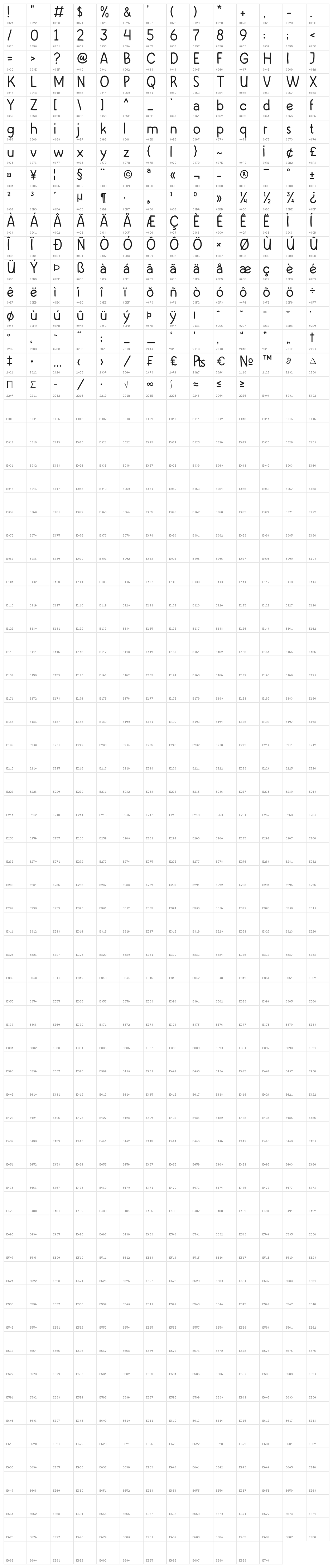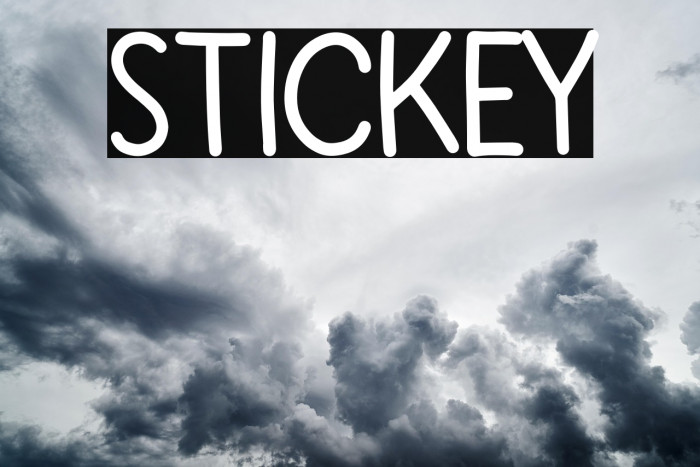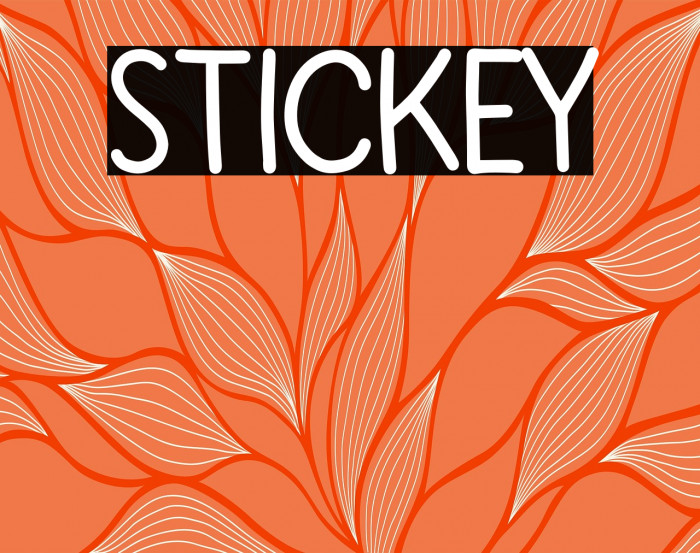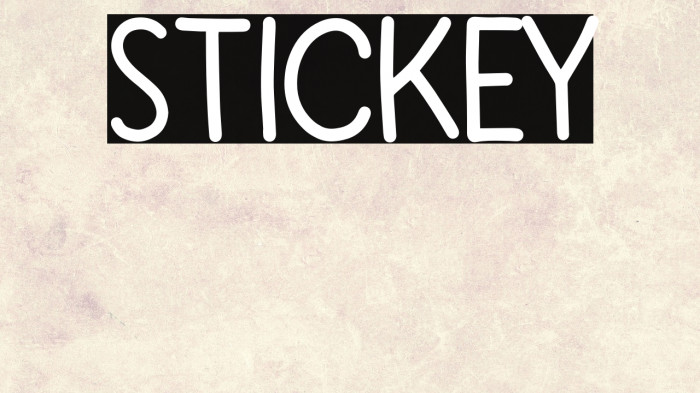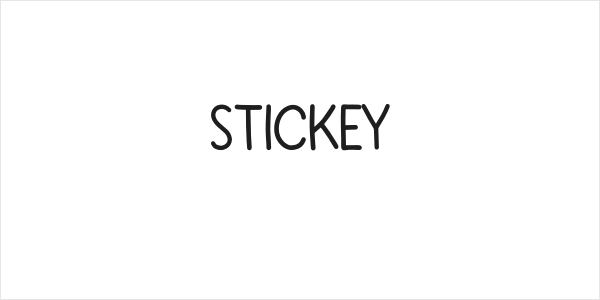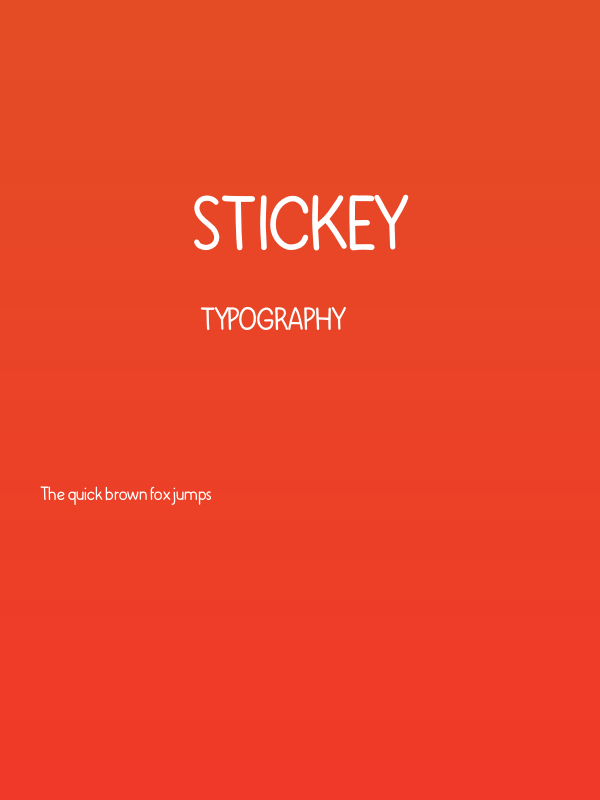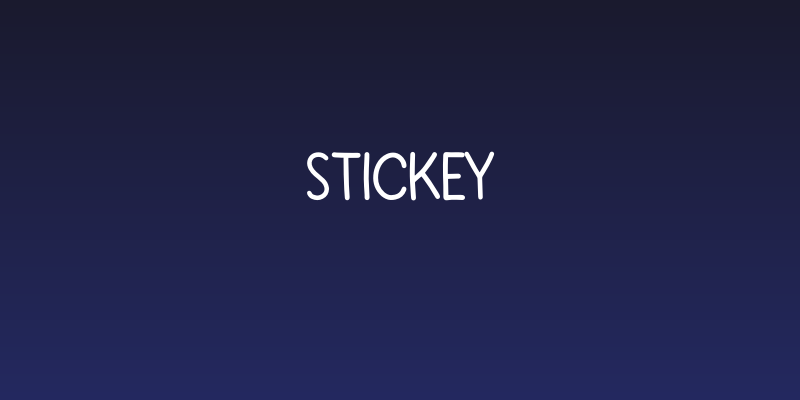
STICKEY Font
STICKEY Description
This font features a playful and casual handwritten style, characterized by its rounded and slightly irregular letterforms. The strokes are consistent in thickness, giving it a uniform appearance while maintaining a friendly and approachable vibe. The letters are well-spaced, ensuring readability, and the overall design conveys a sense of informality and creativity. The numerals and special characters complement the alphabet with the same playful aesthetic, making it versatile for various uses. Its simplicity and charm make it suitable for projects that require a personal touch.
| Overall Style | Casual |
| Use Case | Headlines, Informal text, Creative projects |
| Proposed Projects | Ideal for children's books, greeting cards, casual branding, and social media graphics. |